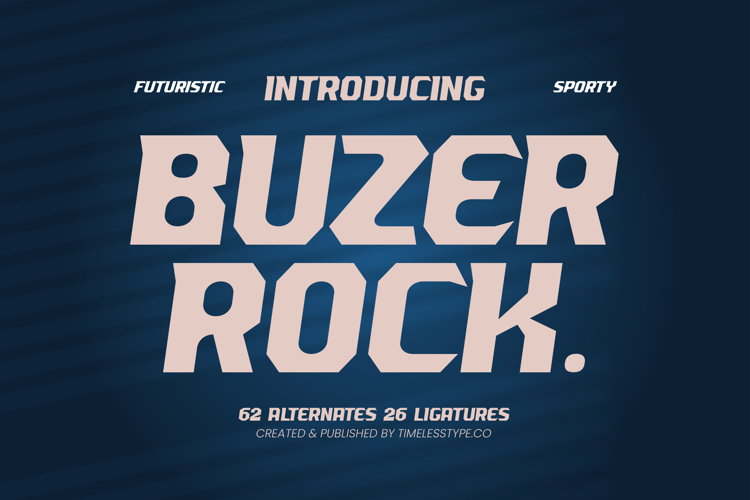
Buzer Rock - Futuristic Sporty Font
Ignite your designs with unparalleled energy and modern flair. Introducing Buzer Rock - Futuristic Sporty Font, a typeface engineered for impact and speed. Its distinctive bold geometry, sharp angles, and robust construction project an unmistakable sense of futuristic dynamism and athletic power. This font commands attention, perfectly embodying innovation and forward momentum in every character, making it an ideal choice for high-impact visuals.
Unlock limitless creative possibilities with a font designed for the cutting edge. Buzer Rock - Futuristic Sporty Font offers exceptional design value, providing 62 alternates and 26 ligatures that allow for truly customized typography. These features ensure your text always looks unique and professional, empowering designers to craft distinctive headlines, logos, and branding elements that stand out in competitive markets.